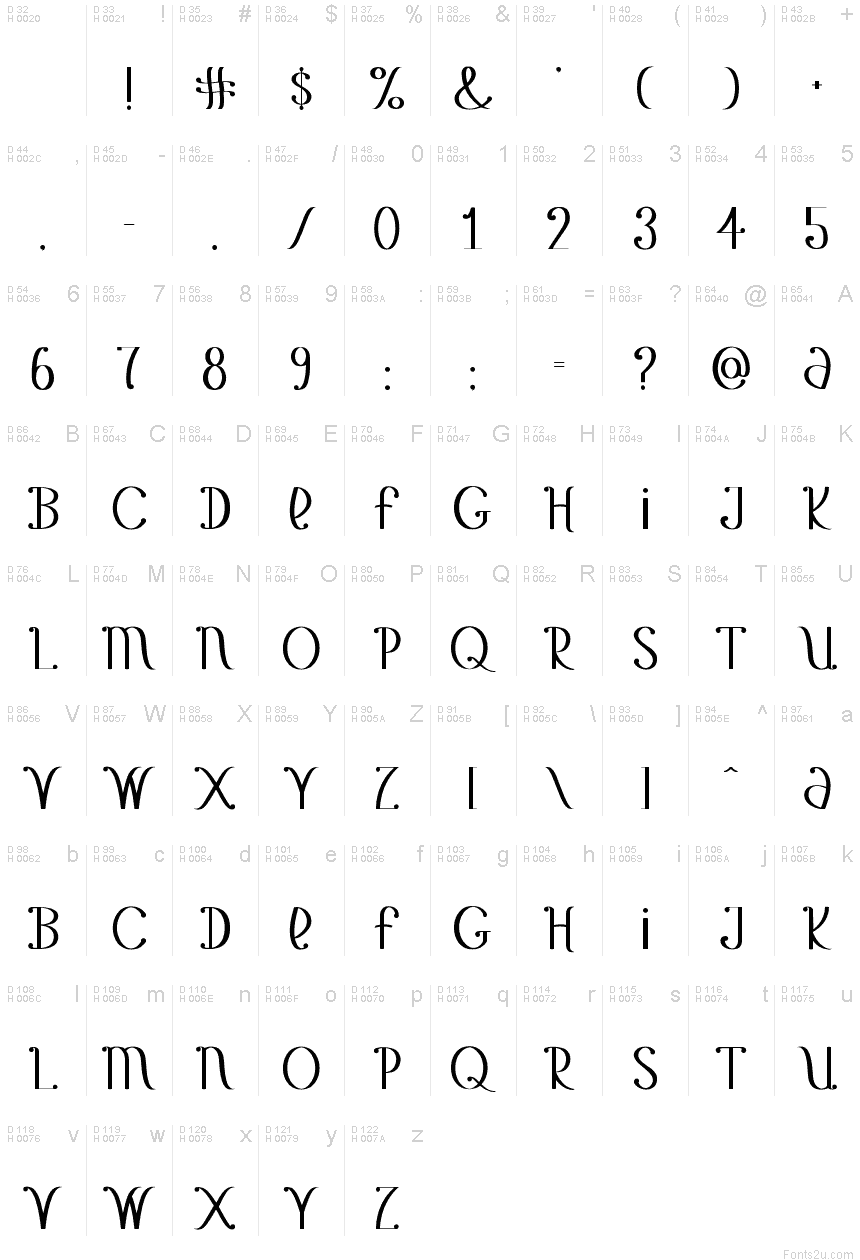
Chiquita Banana
Chiquita Banana font by Janet Cordahi is a free decorative comic display typeface. Its tall, inky strokes and swooping curves feel like a fashion headline that wandered into a Sunday funnies strip-elegant, but with a wink. The letters lean into dramatic thick-and-thin rhythm, tight curves, and quirky angles that give every word a hand-lettered, boutique signboard energy.
Using Chiquita Banana, your titles instantly gain a bold, theatrical presence that still feels friendly and approachable. This free font shines on candy or snack packaging, kids’ party invitations, playful posters, boutique logos, social media graphics, and whimsical book covers. For balance, pair it with a clean geometric sans in small sizes and let Chiquita Banana handle the big, attention-grabbing words.